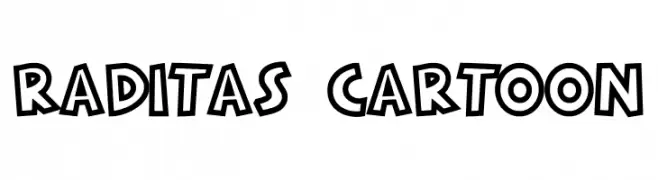
A bold, playful font with letters in tilted squares, offering a dynamic and energetic look.
A bold, 3D font with shadow effects and geometric design.
A bold, cartoonish font with thick outlines and playful character design.
A bold, dynamic font with a 3D effect and strong, angular design.
A playful, decorative font with bold letters inside ornament-like circles topped with bows.
A bold, playful font with a 3D effect and thick black outlines.
A decorative font with characters enclosed in heart shapes, perfect for romantic themes.
A bold, 3D italic font with a modern, geometric style.